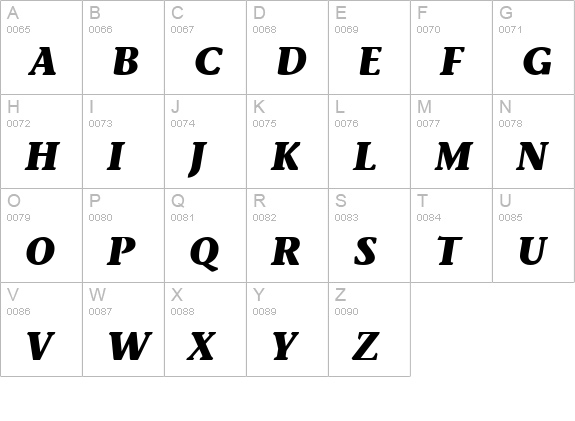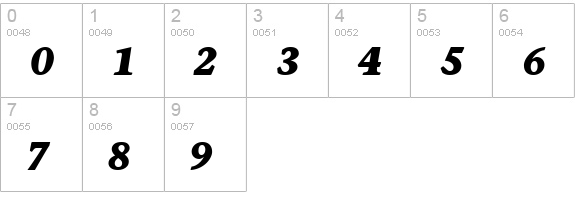
Mesouran Casual Black SSi Bold Italic is a maximum-weight, dramatic, italic variant in the Mesouran typeface family \xE2\x80\x94 well suited to maximum-impact headlines, posters, and packaging.
Mesouran Casual Black SSi Bold Italic font is a stunning and versatile typeface that exudes modernity and sophistication. Its bold and italic design adds a touch of elegance to any project, making it perfect for headlines, titles, and branding materials. With its sleek and contemporary appearance, this font is sure to make a statement and capture the attention of your audience. The Mesouran Casual Black SSi Bold Italic font is not only visually appealing but also highly readable, making it suitable for a wide range of design applications. Whether you're working on a website, poster, or social media graphic, this font will help you achieve a polished and professional look. Best of all, the Mesouran Casual Black SSi Bold Italic font is available for free download at FontsMarket.com. This means that you can easily access and use this stylish typeface in your projects without any cost. Don't miss out on the opportunity to enhance your designs with the Mesouran Casual Black SSi Bold Italic font today!